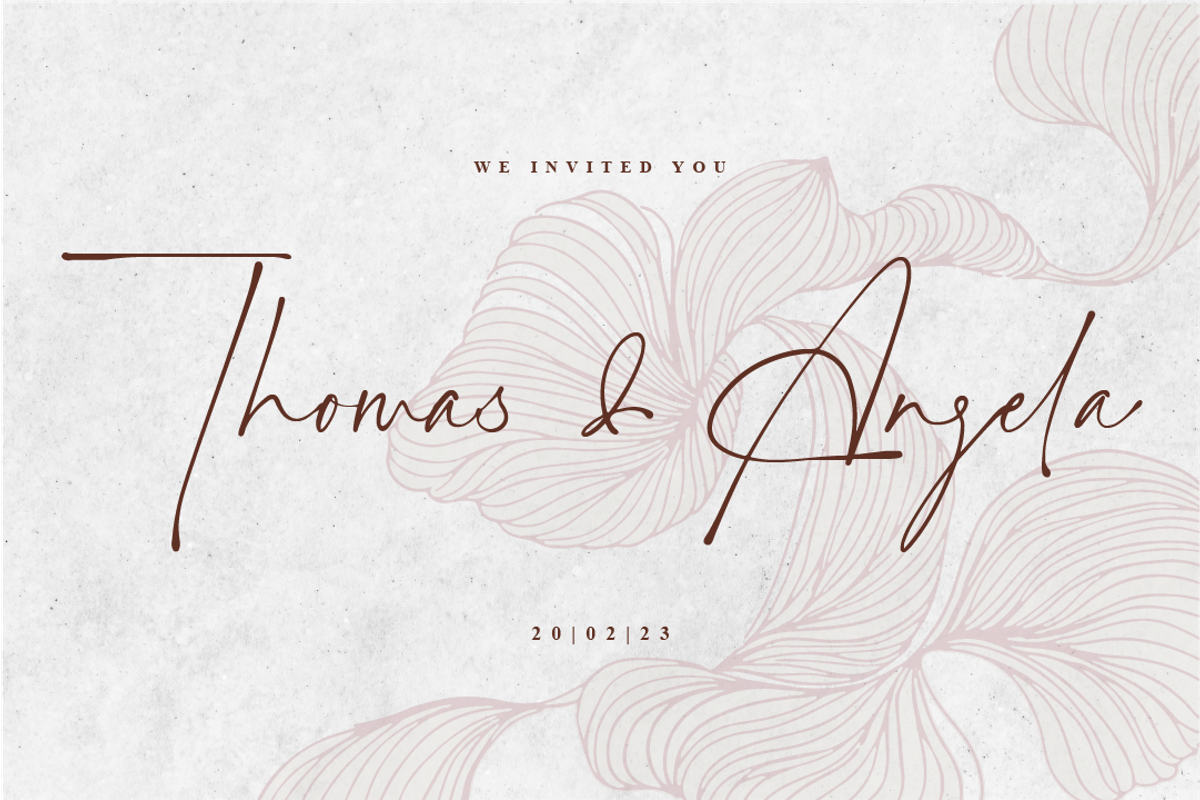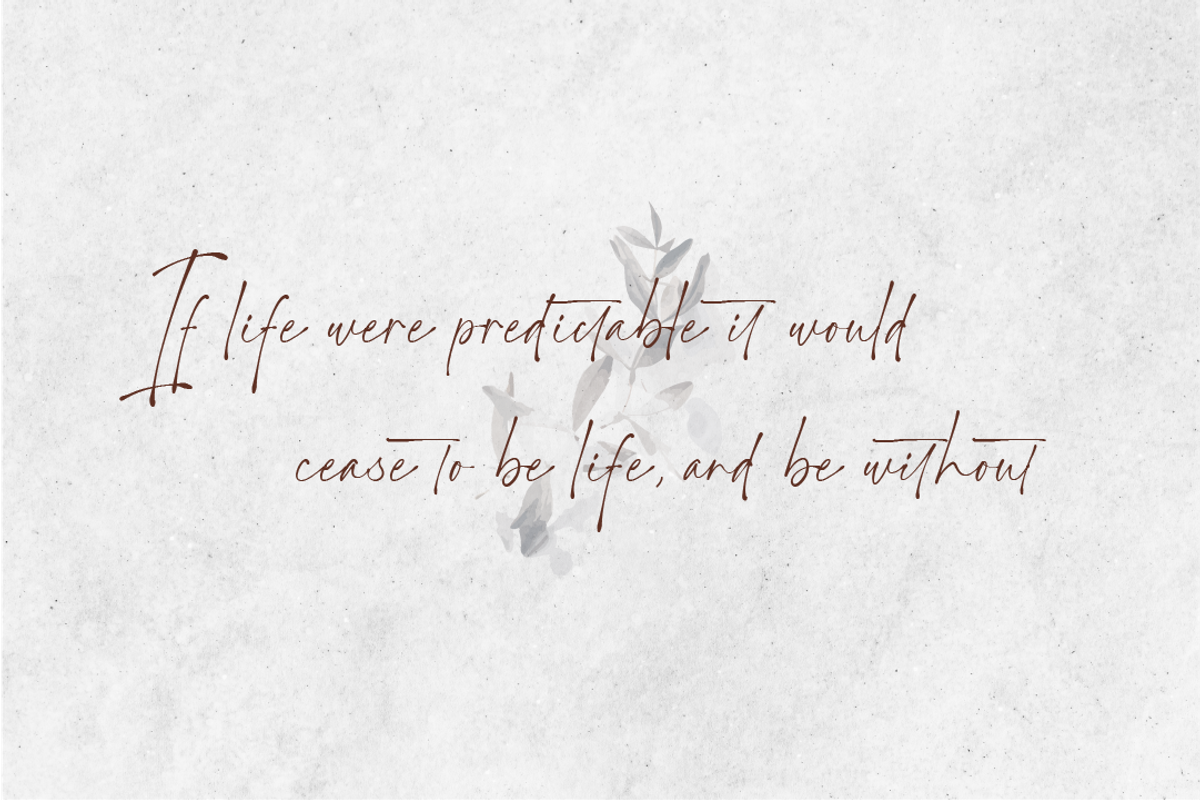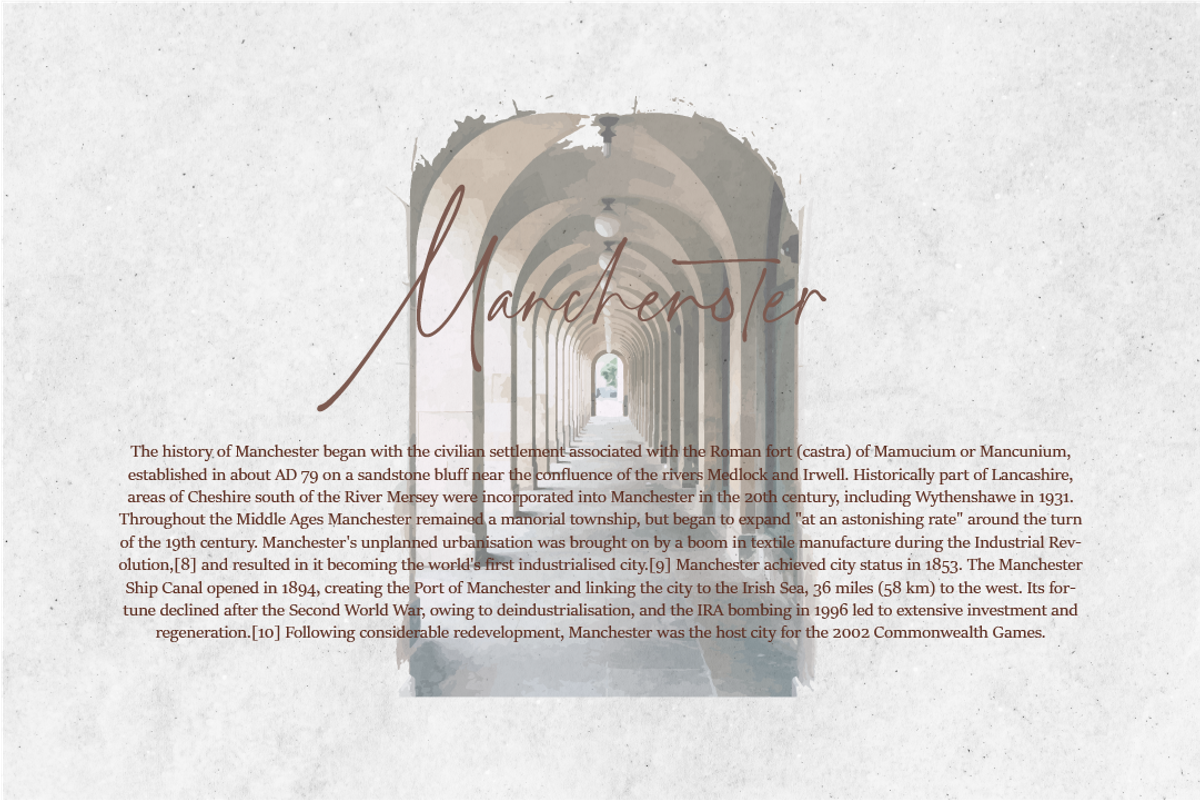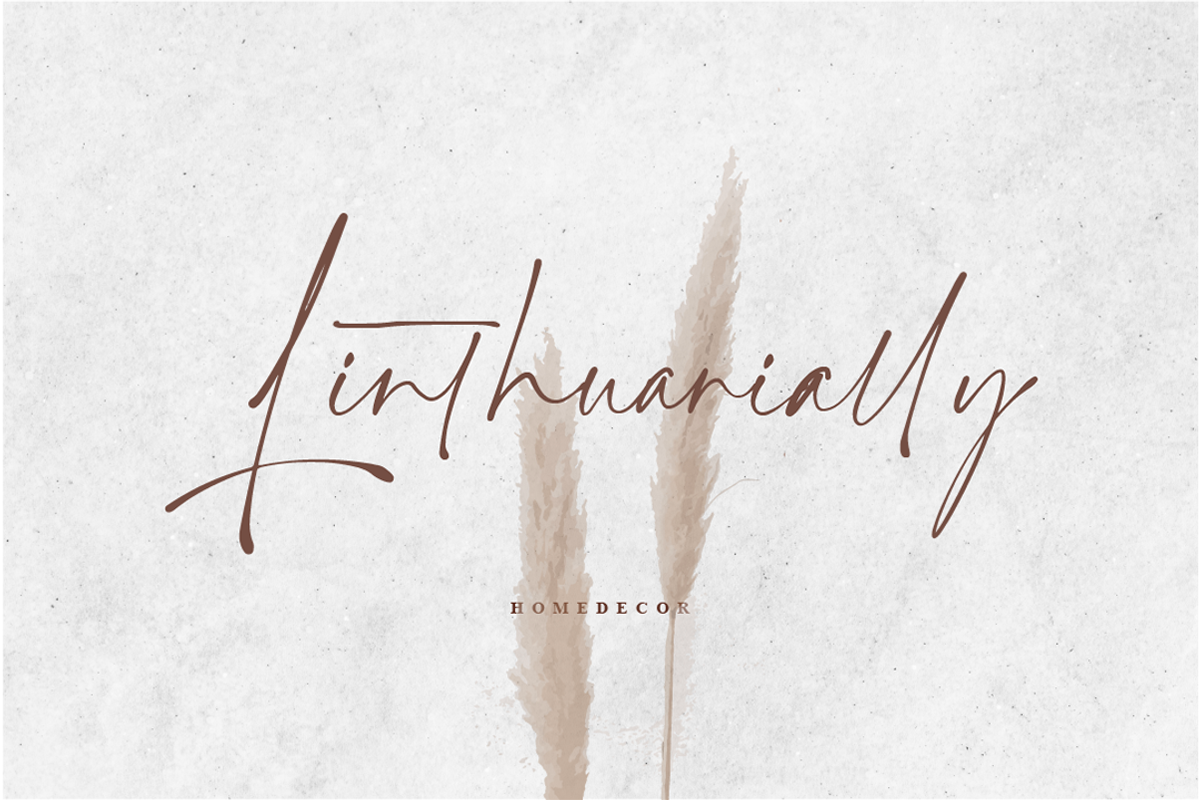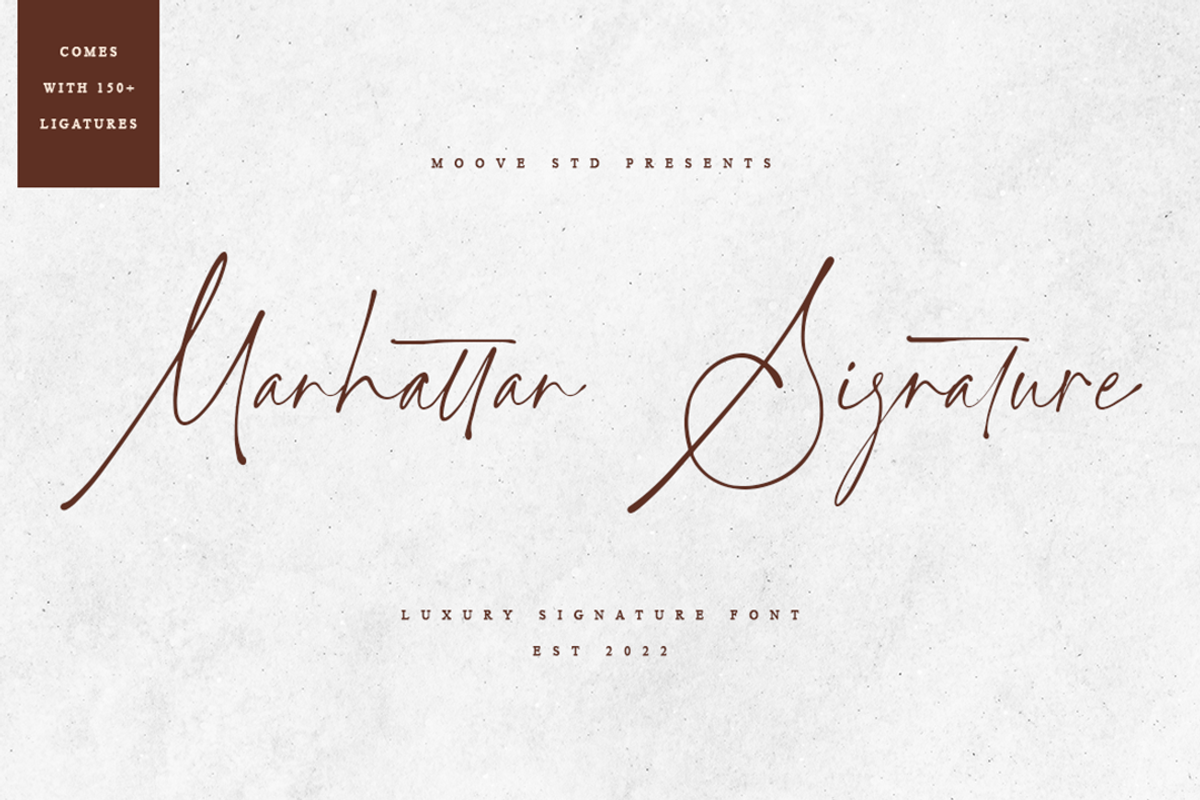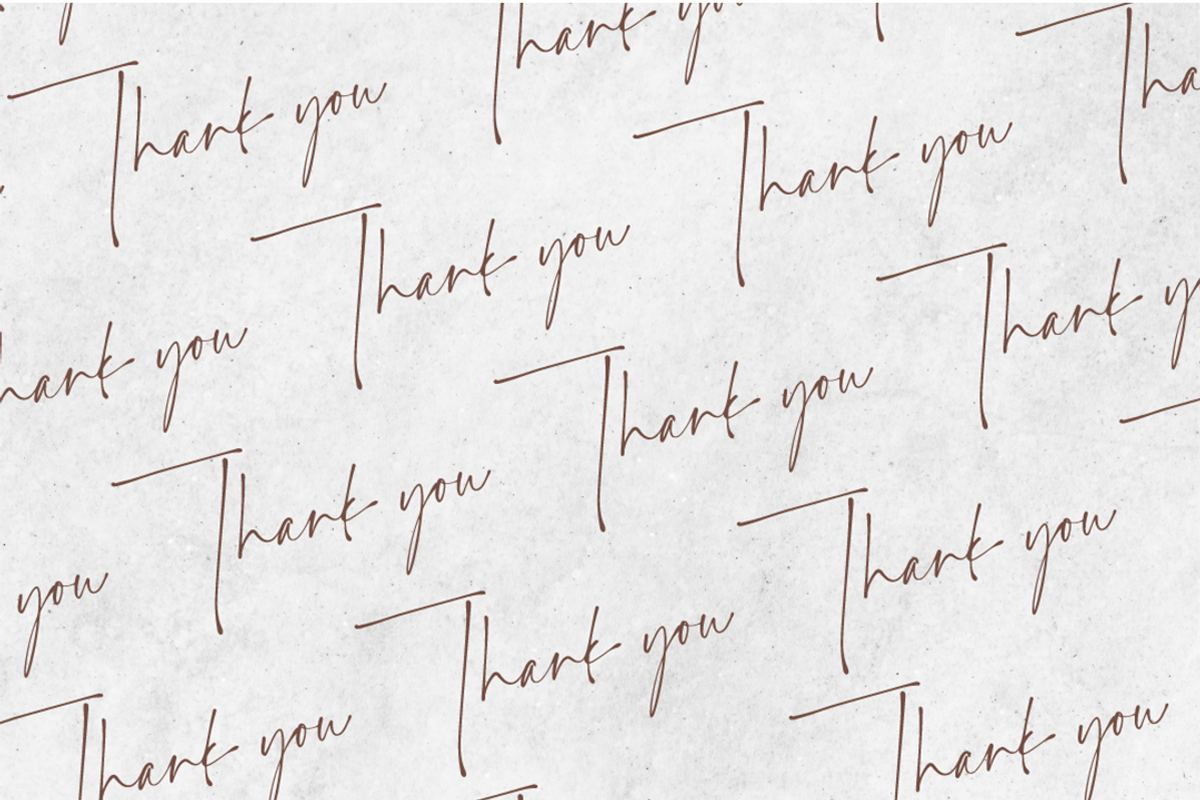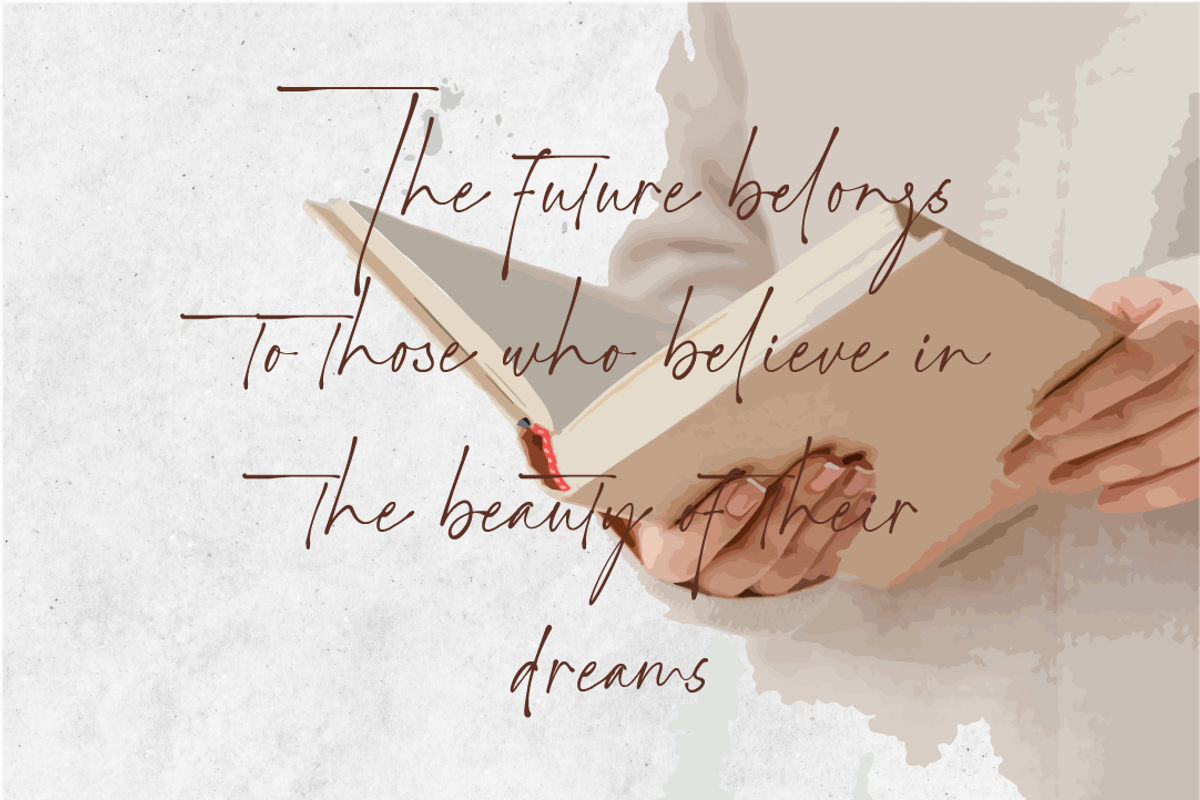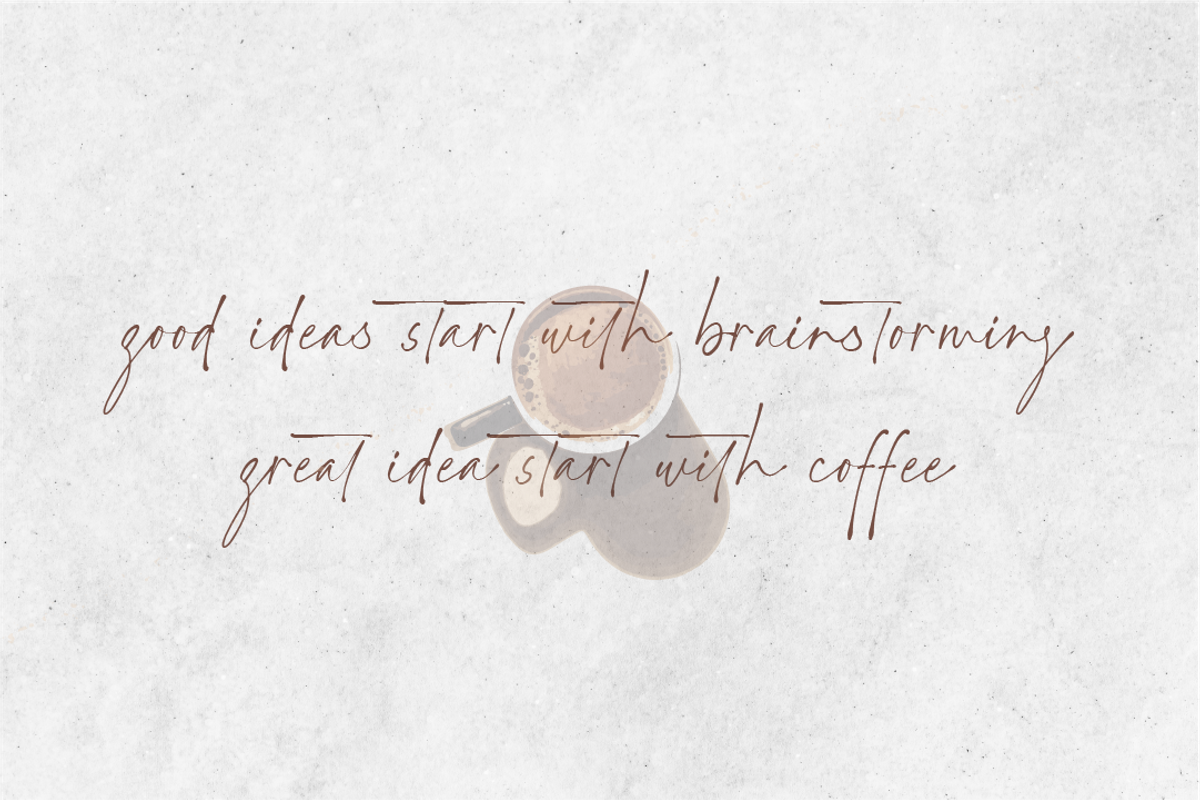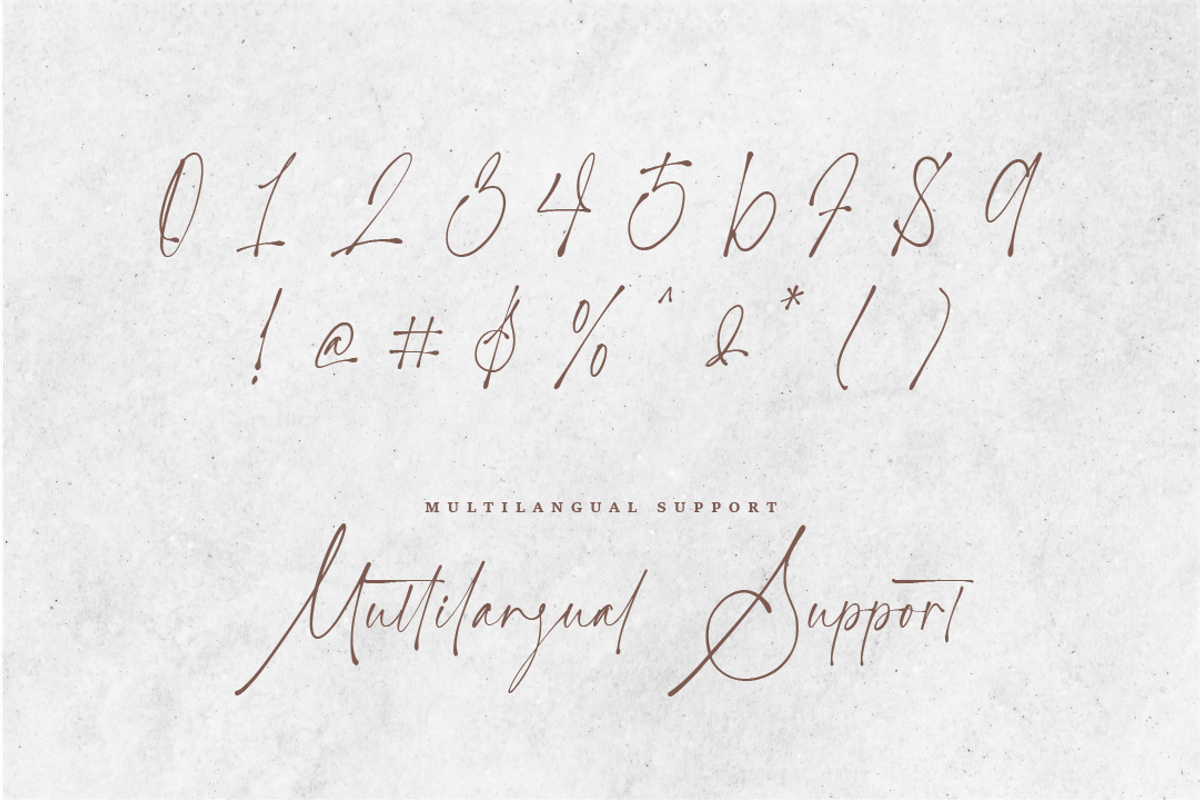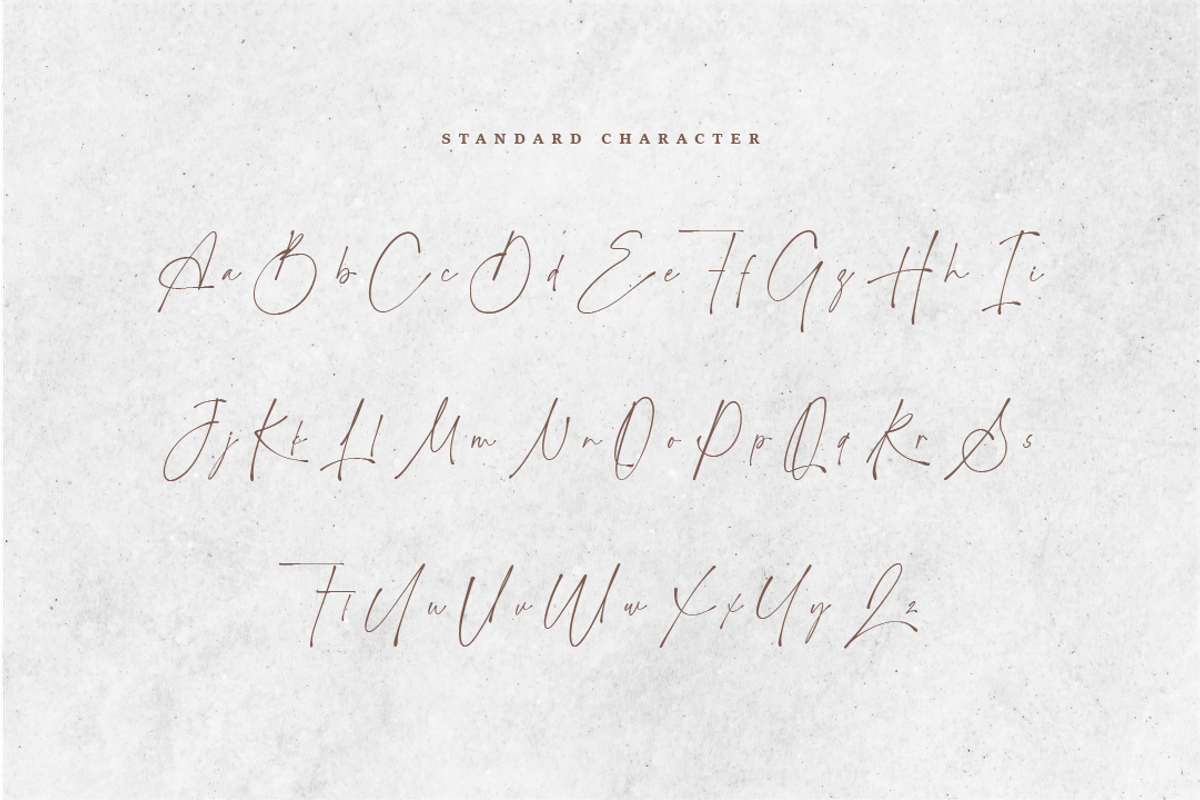
Manhattan Signature | Signature Font
Hi! Introducing my newest font called Manhattan Signature.
Manhattan Signature is a stylish and luxurious handwritten font. Use this font in any of your brilliant ideas like invitations, mockups, logos, etc., and every design will definitely look elegant and elevated! Manhattan Signature is PUA encoded which means you can access all the glyphs and ligatures with ease!